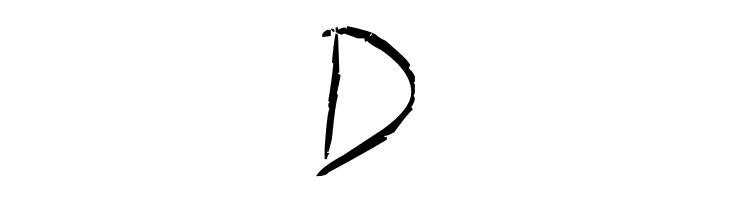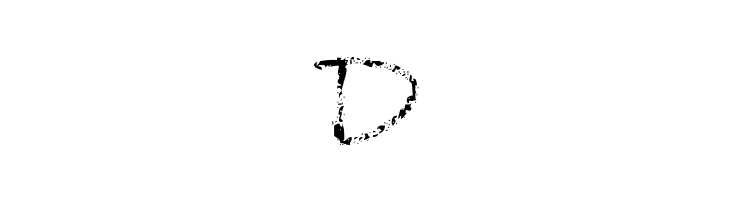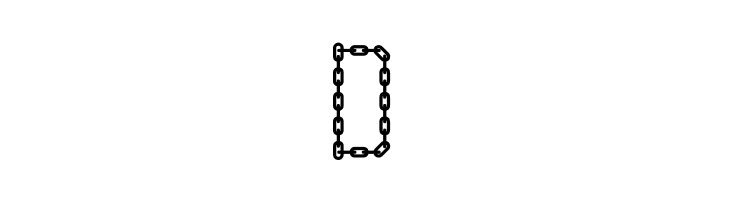
A bold, pixelated font with a jigsaw puzzle design.
A playful, dotted decorative font with a whimsical style.
A casual, handwritten-style font with a ballpoint pen aesthetic.
A bold, high-contrast font with ornate uppercase letters and elegant flourishes.
A distressed, grunge-style font with elongated, narrow characters and a hand-drawn look.
A bold, brush-style font with dynamic and irregular strokes.
A bold, brush-style font with a dynamic and energetic appearance.
A bold, condensed, and italic font with high contrast and dynamic, brush-like strokes.
A bold, brush-style italic font with dynamic, expressive strokes.
A classic serif font with elegant, refined strokes and pronounced serifs.
A playful, handwritten font with a whimsical and informal style.
A pixelated, retro-style font with bold outlines and a uniform height.
Stone-patterned decorative font with mosaic-like characters.
A dynamic font with silhouettes of people, embodying energy and community.
Ornamental fleur-de-lys symbol font with diverse styles.
Ornamental font with diverse fleur-de-lys motifs.
A bold, geometric font with a 3D effect, perfect for modern designs.
A bold, italicized 3D font with a futuristic and angular design.
A bold, geometric, and condensed font with a futuristic digital aesthetic.
A bold, condensed, and italicized font with a futuristic, geometric style.
A bold, angular font with a futuristic and geometric design.
A bold, condensed font with rounded edges and uniform strokes.